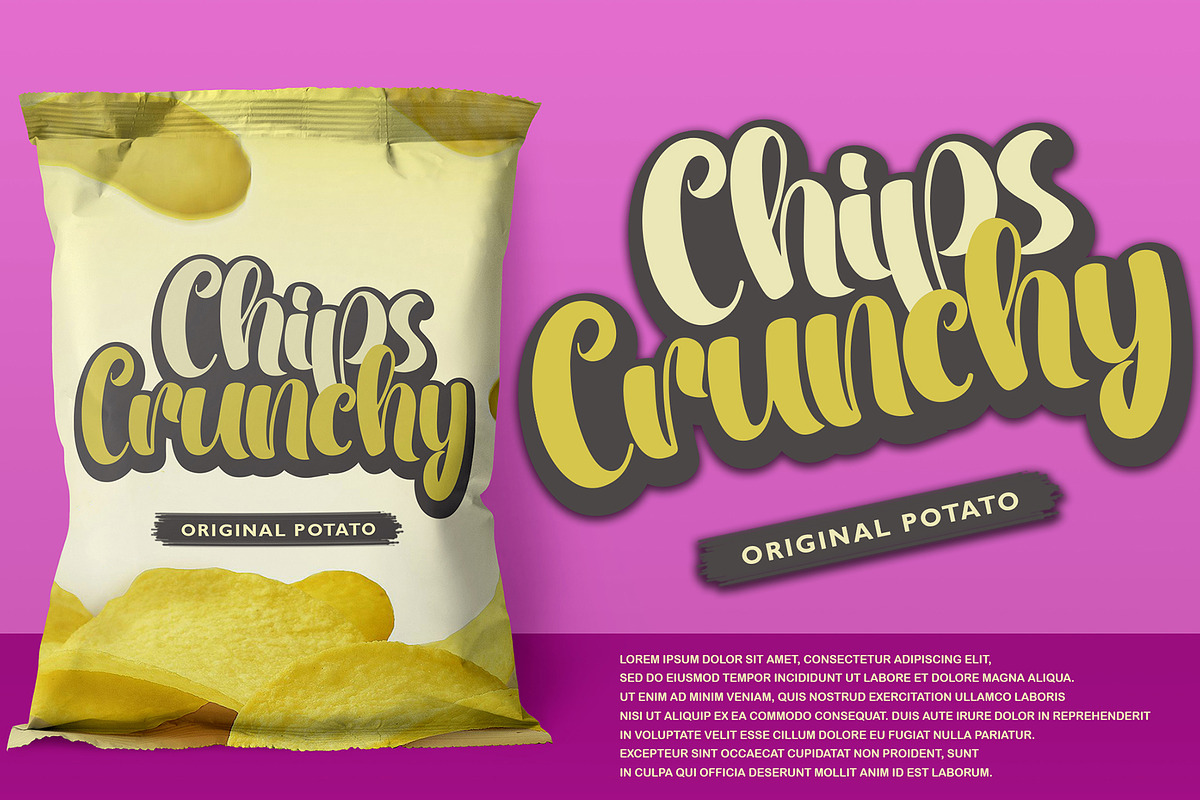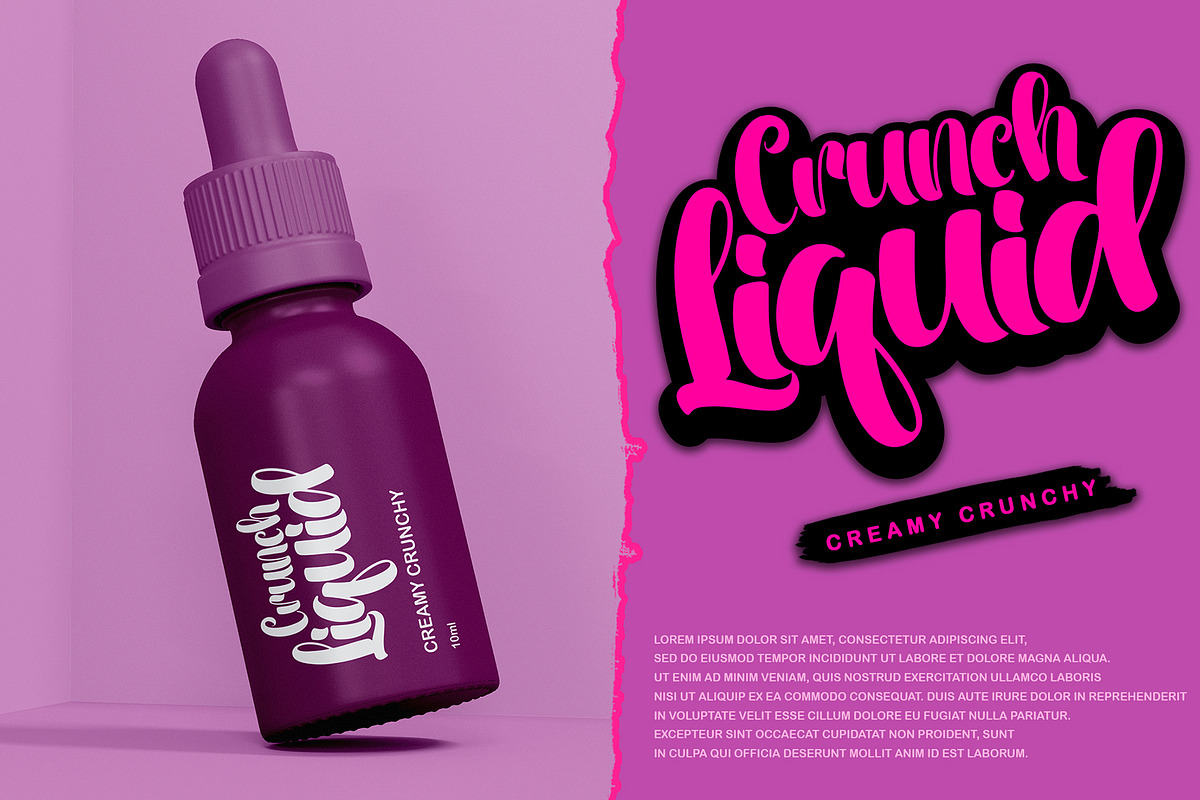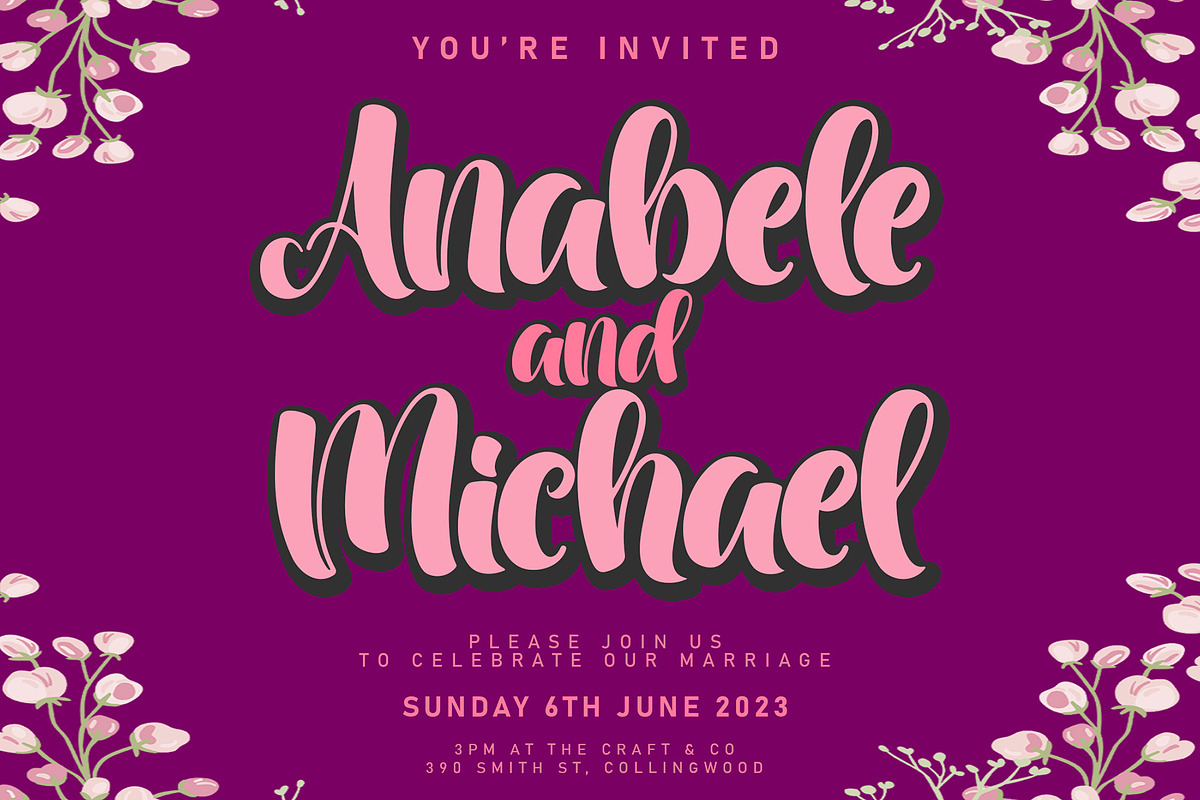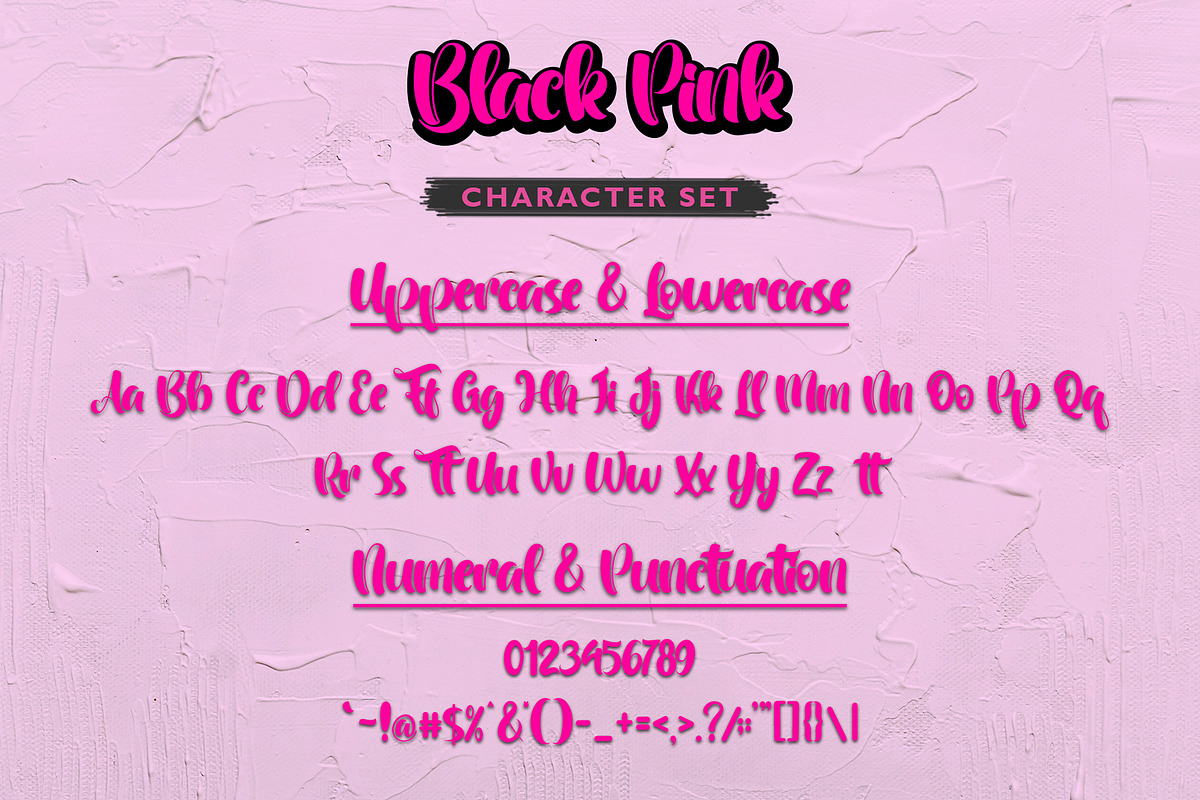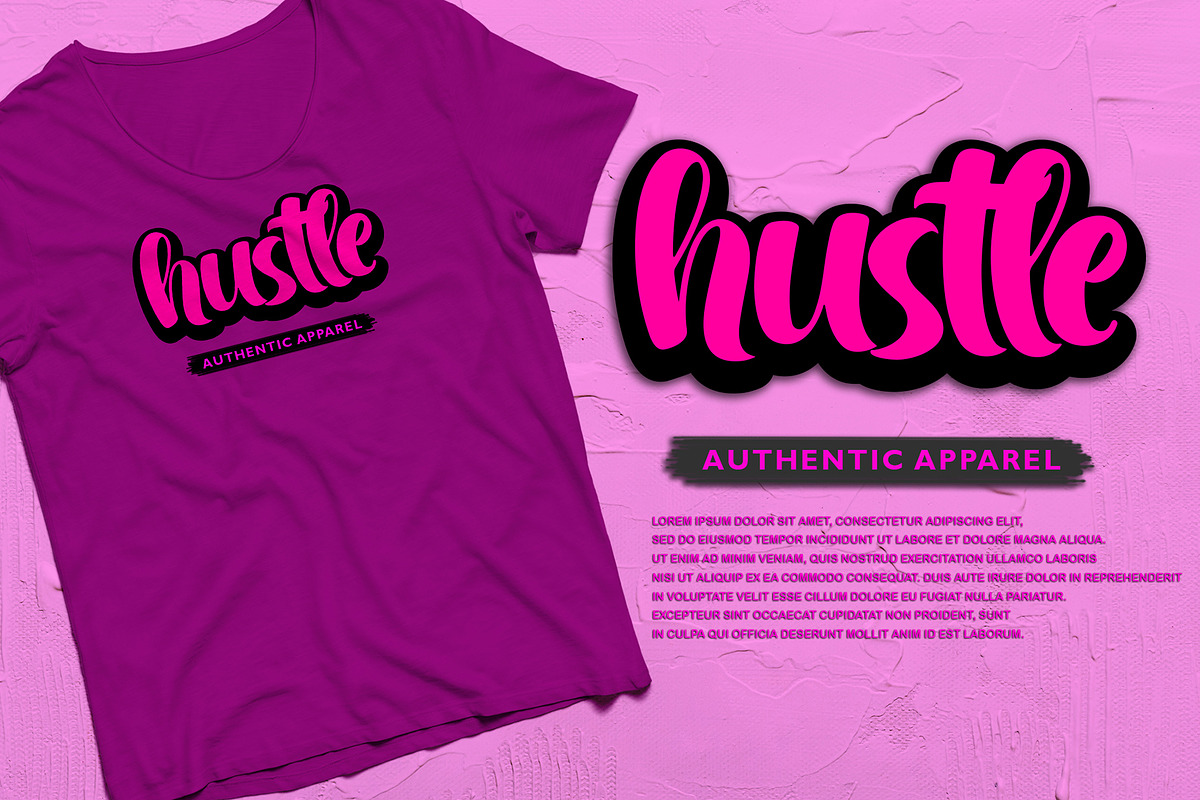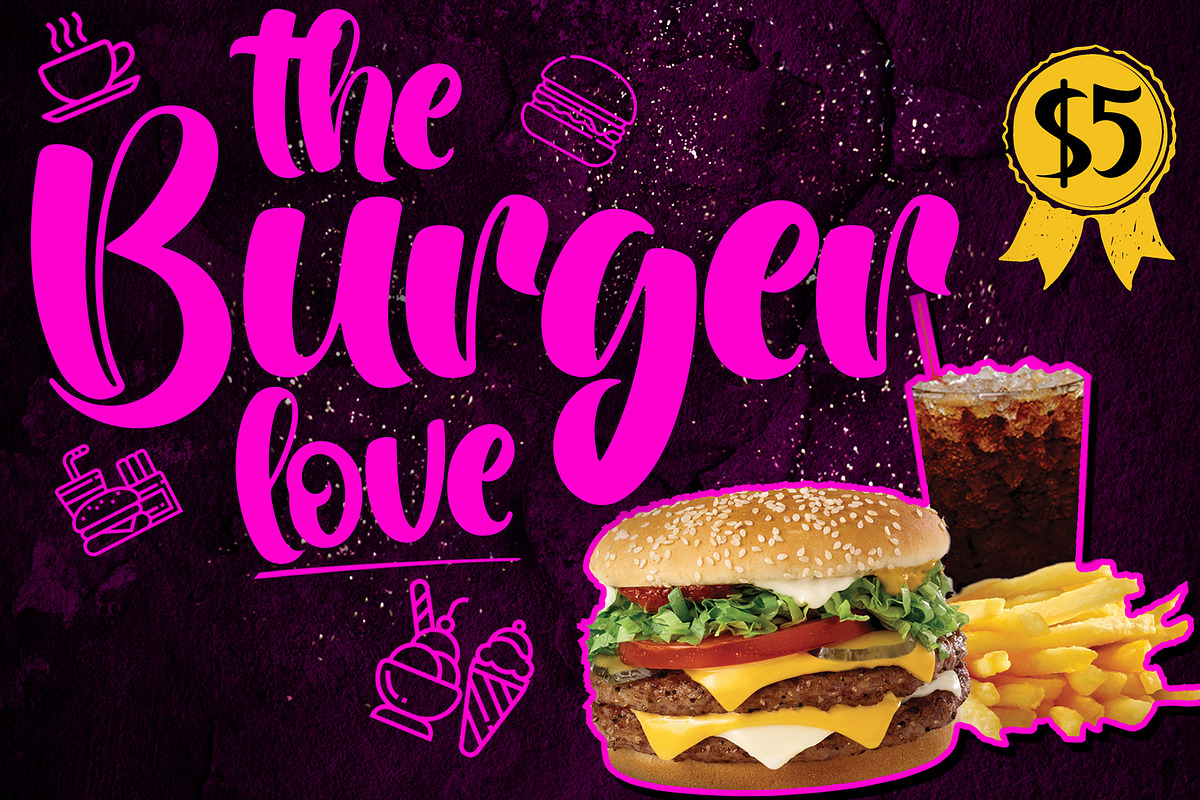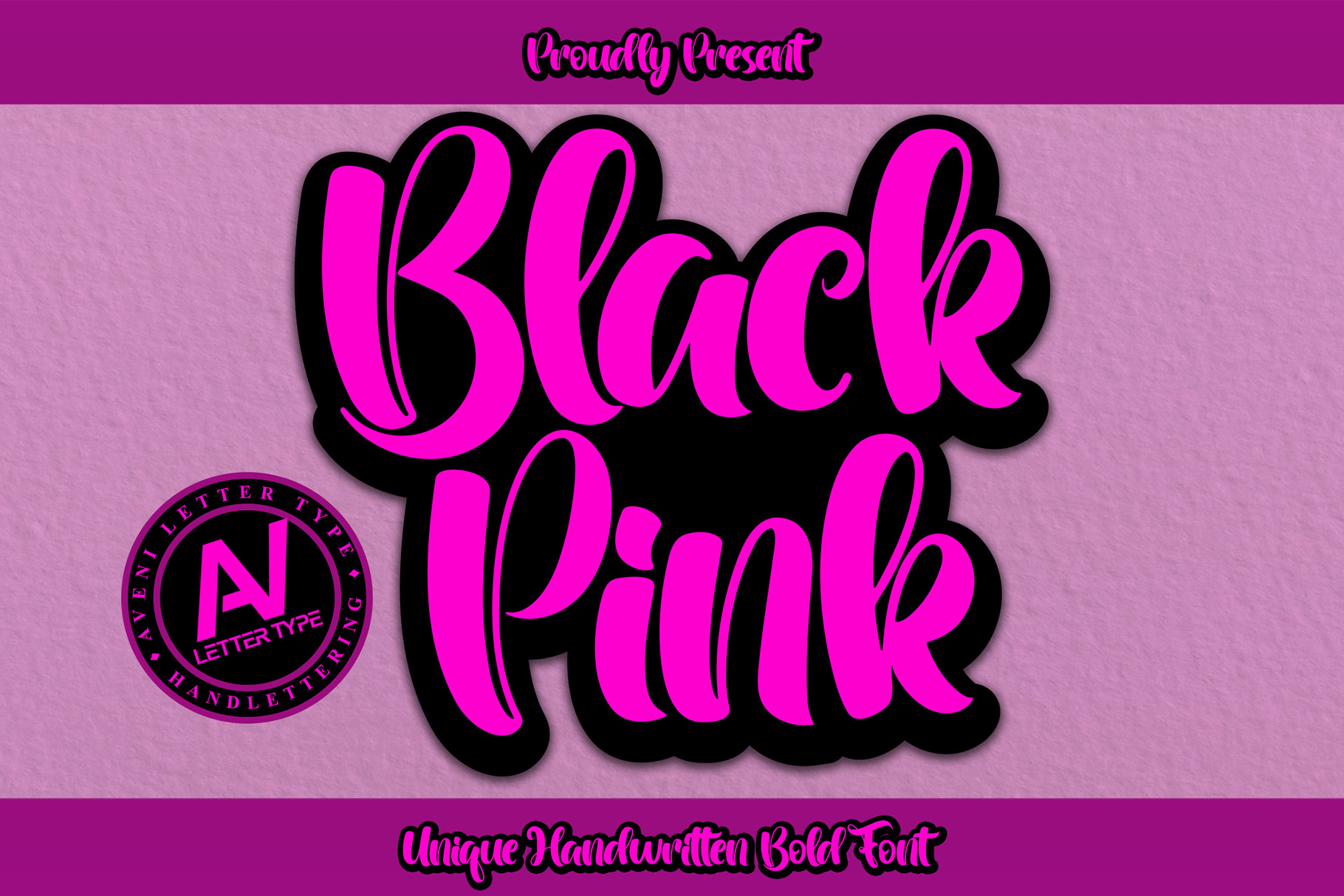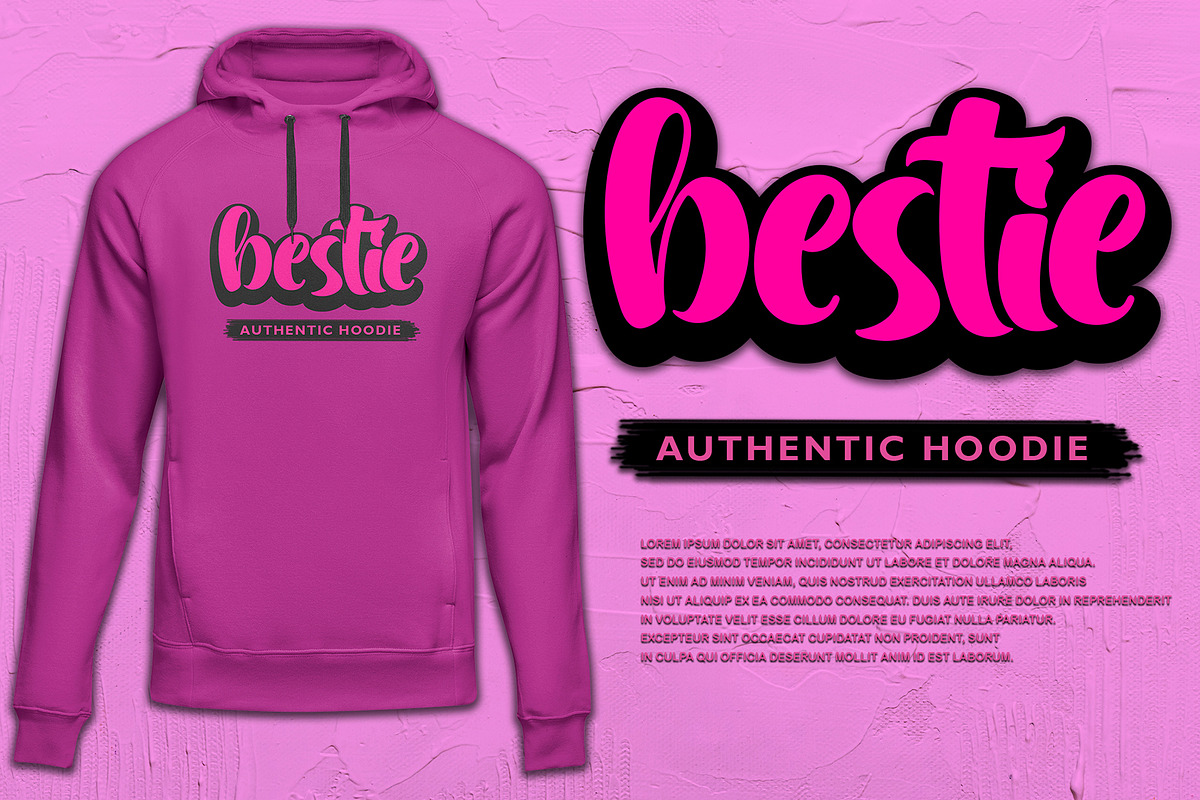
Black Pink | Handwritten Bold Font
Black Pink is a unique handwritten bold font that has a very neat kerning. Expertly designed to make your creations look amazing. This font will look great on a variety of ideas, and use it to get creative in apparel branding, daily quotes, tote bag or handbag branding, product packaging, headers, posters, merchandise, wedding invitations, social media & greeting cards, or you can see in the preview I attached, and more!